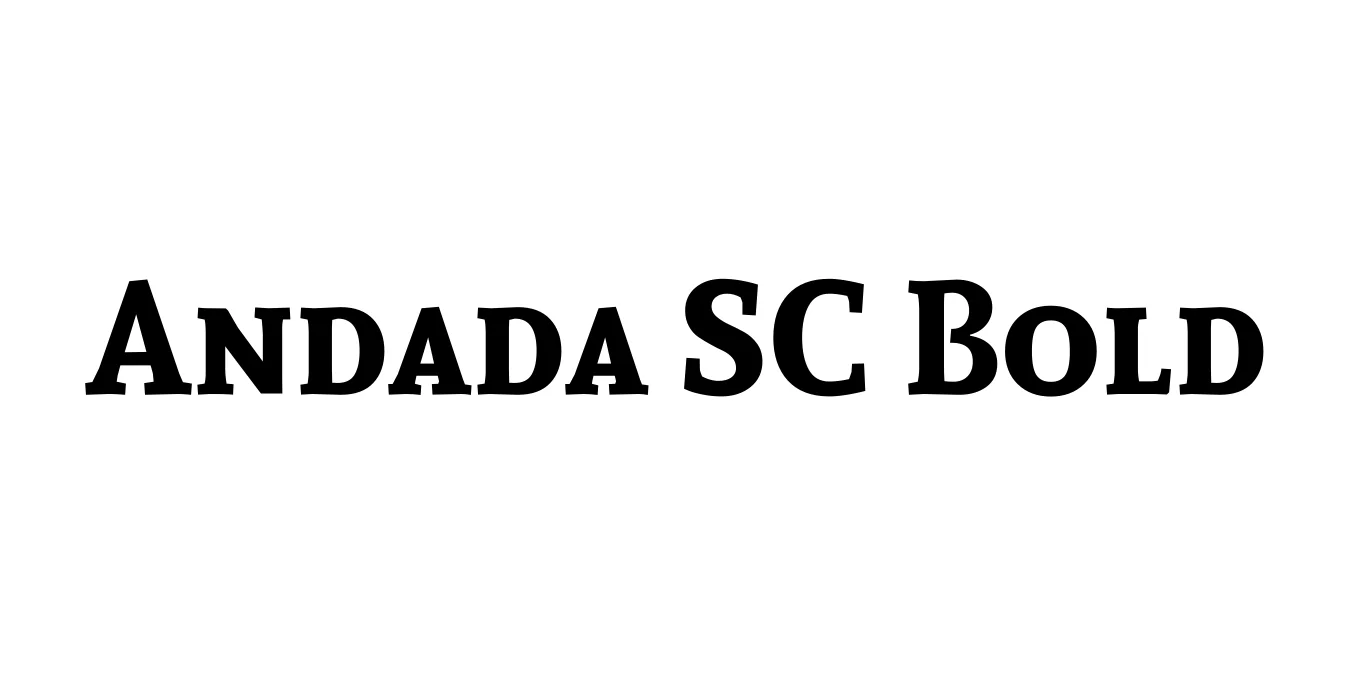
Andada SC Bold
Designed by Carolina Giovagnoli
Andada SC Bold is a sophisticated serif typeface developed by Carolina Giovagnoli for the Huerta Tipográfica foundry. Originally designed as a specialized text face for Spanish and Guarani languages, it emphasizes a rhythmic flow and organic structure that facilitates reading in bilingual contexts. The project was notably recognized at the Ibero-American Design Biennial, highlighting its superior craftsmanship and utility in the realm of modern typography.
The Bold Small Caps (SC) variant provides a robust and authoritative presence while maintaining the humanist proportions of the original family. It is engineered for high legibility in complex editorial environments, offering a sturdy stroke weight that excels in both print and digital mediums. This font is particularly effective for designers who need a classic, yet technically modern serif that supports a wide range of Latin-based languages.
Andada SC Bold Best Uses
Excellent for magazine headings, book sub-headers, and newspaper layouts.
Provides a trustworthy and professional aesthetic for corporate identities.
Perfect for scholarly journals and formal citations requiring small caps.
Offers a clean and authoritative look for high-impact website headers.